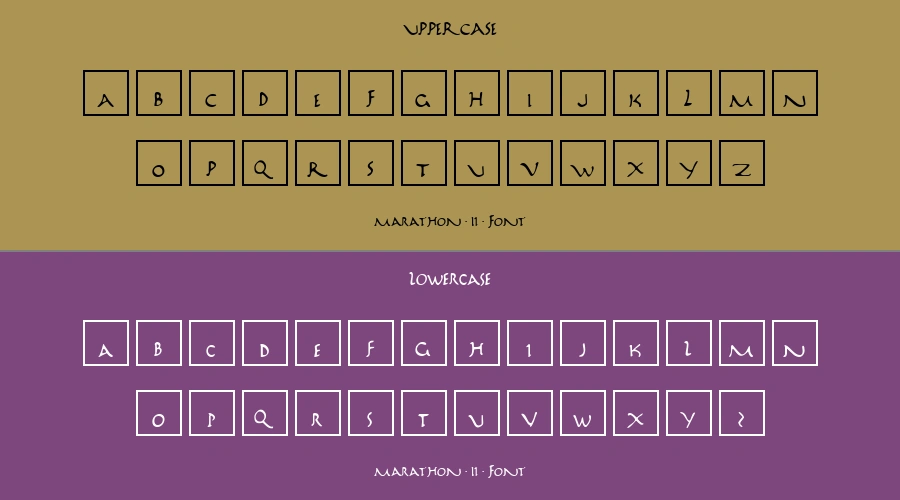
About Marathon Ii Font
Marathon Ii Font embodies typographic excellence through its masterful combination of bold expressions and accuracy. Created for heritage brands, this typeface delivers exceptional versatility and cultural relevance across all applications. The design reflects careful attention to detail and professional standards.
Advanced capabilities include distinctive decorative elements and versatile lining figures, giving designers creative control. When used in sidebars, Marathon Ii Font exhibits remarkable output consistency. The harmonious balance between apex design and lifestyle alignment sets this typeface apart.